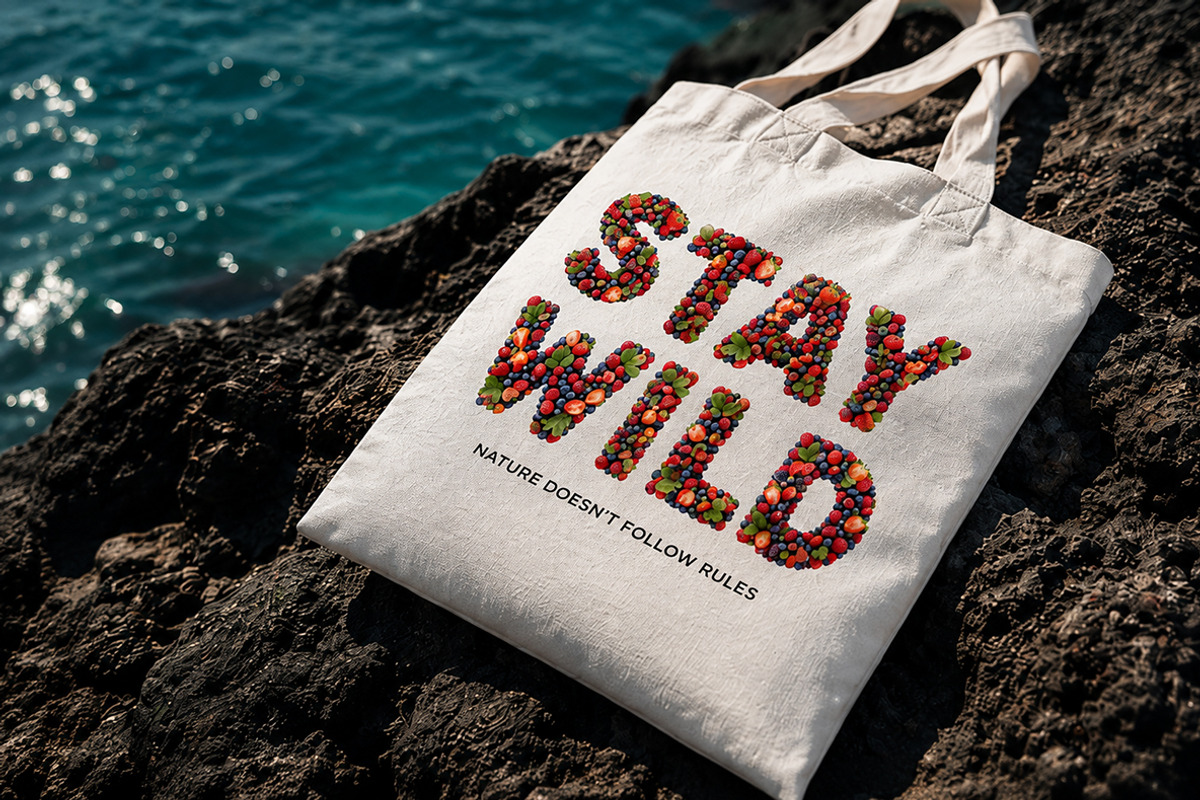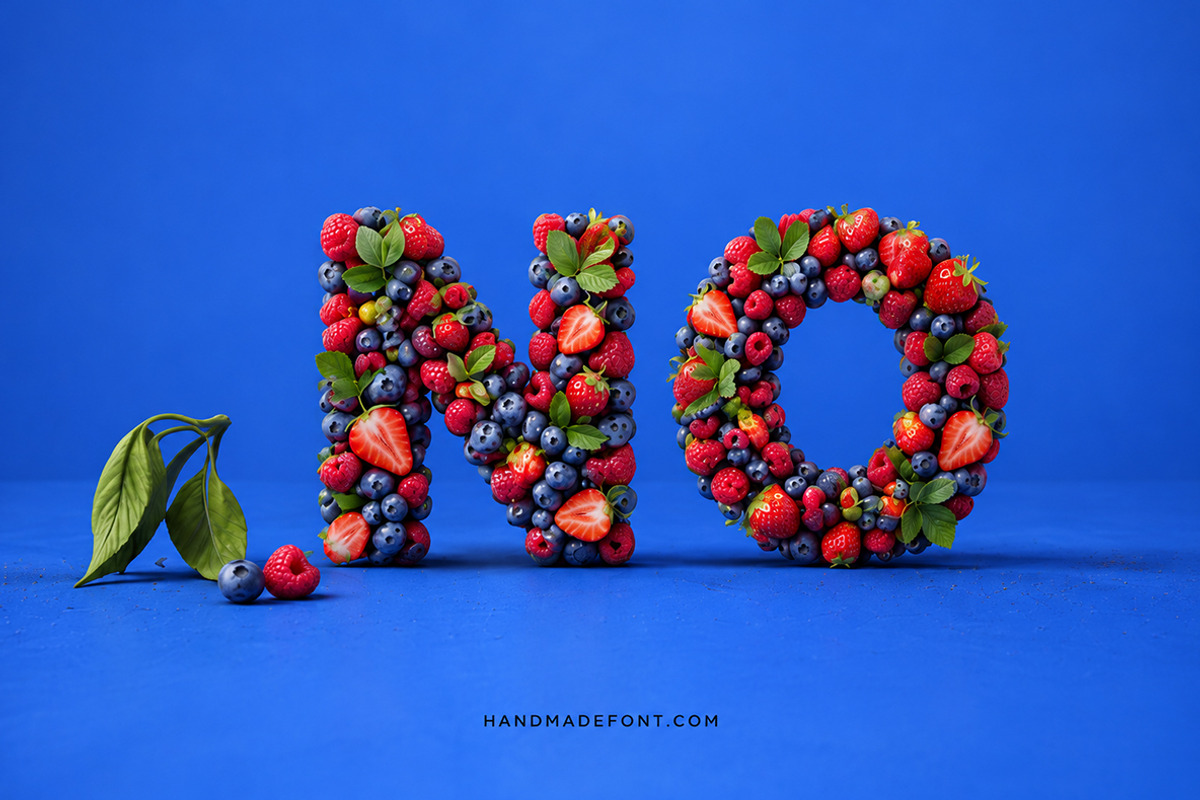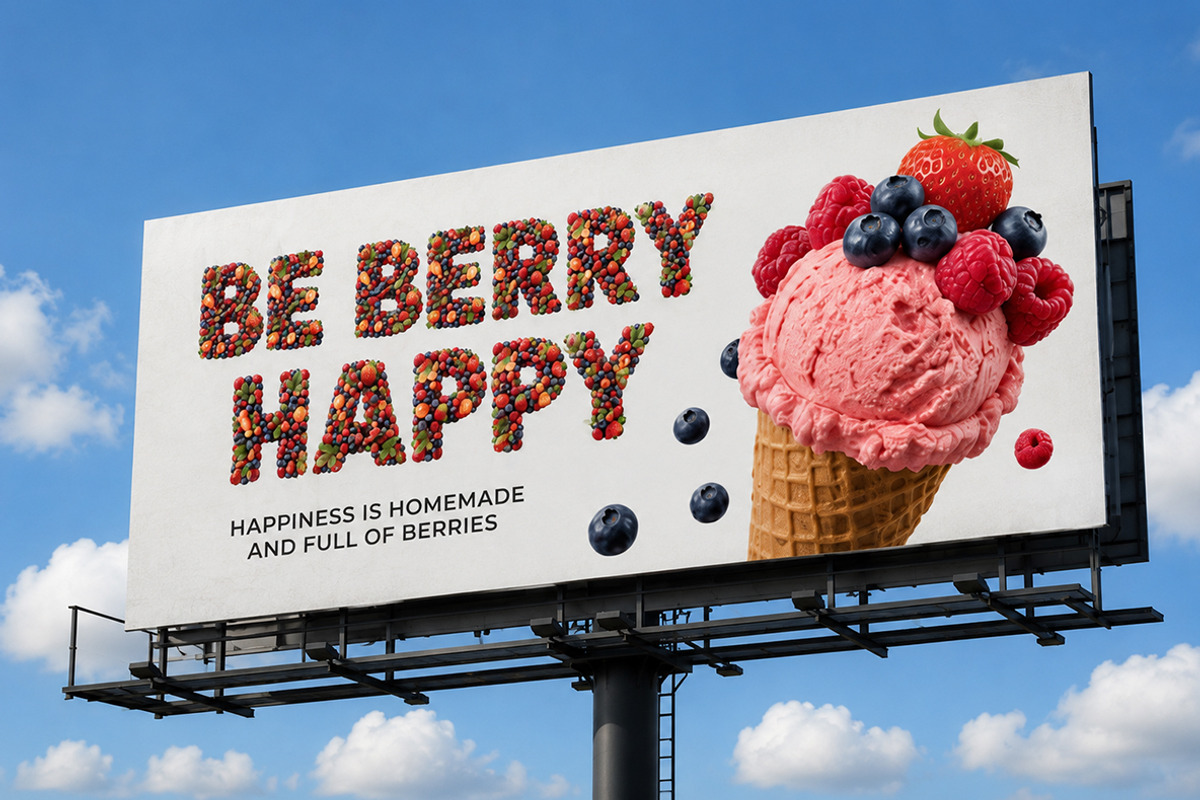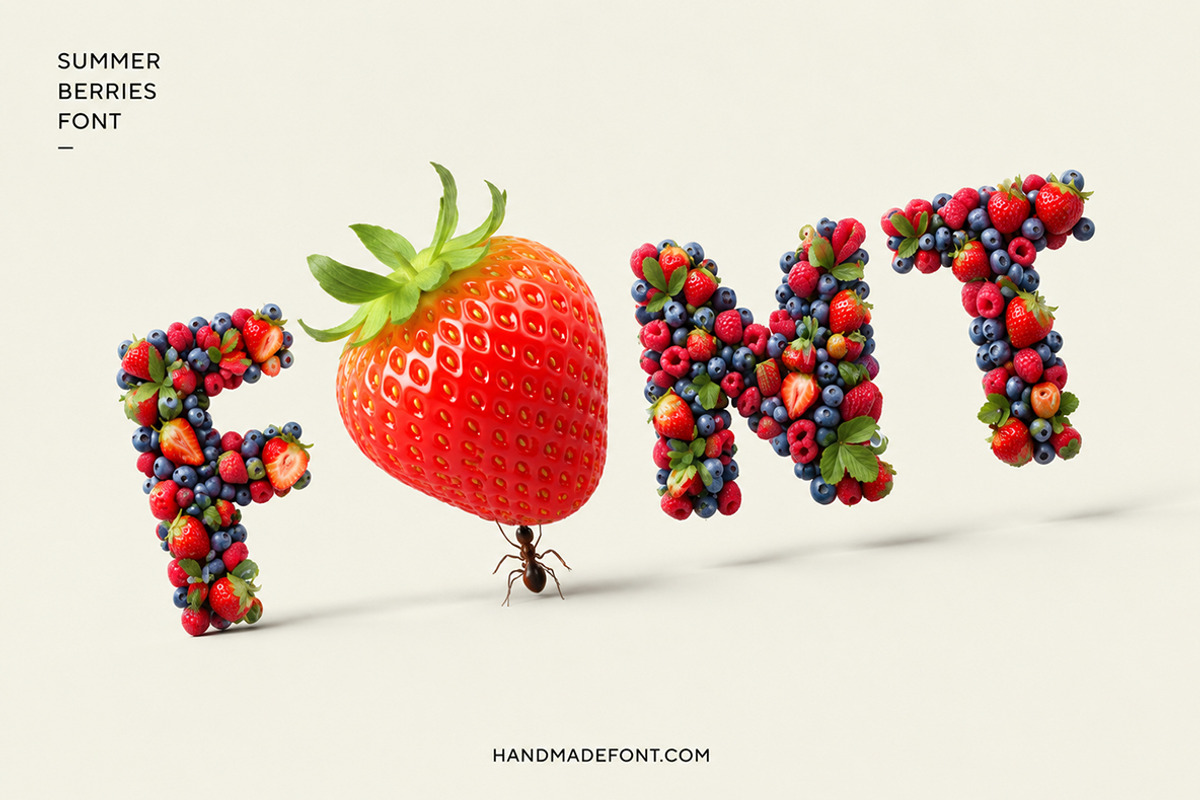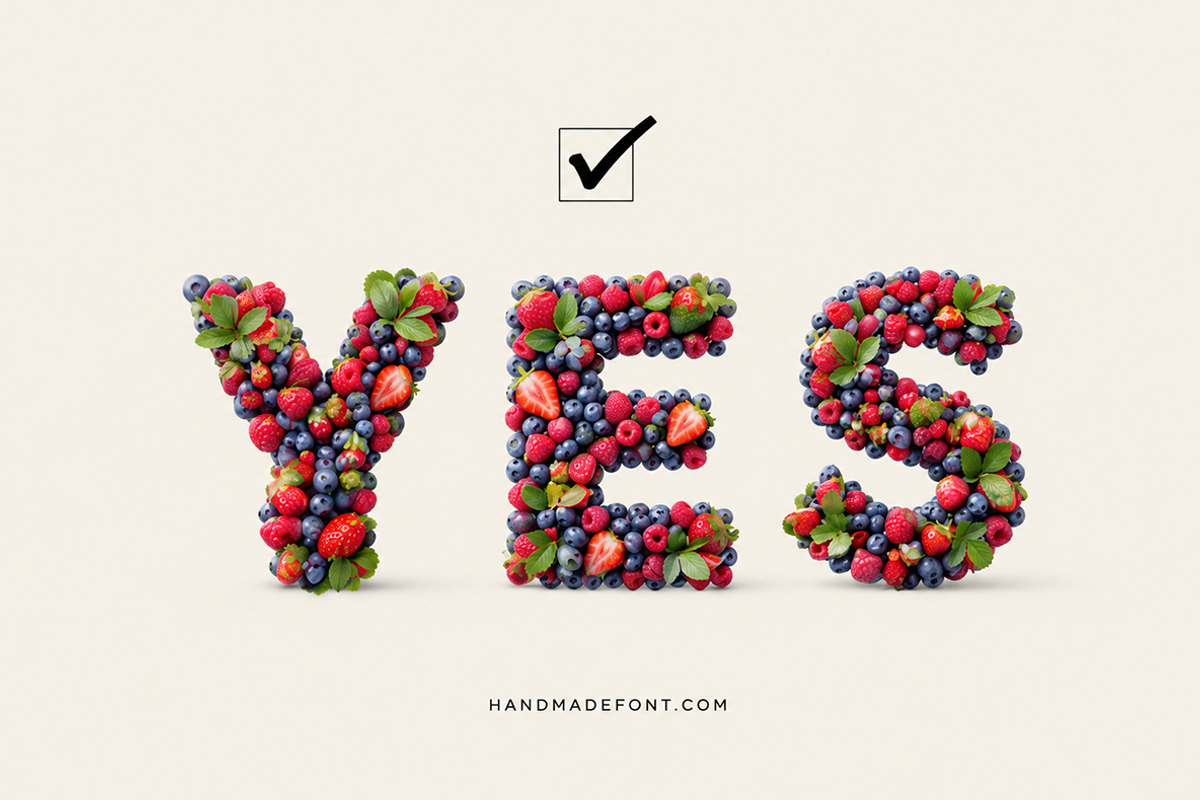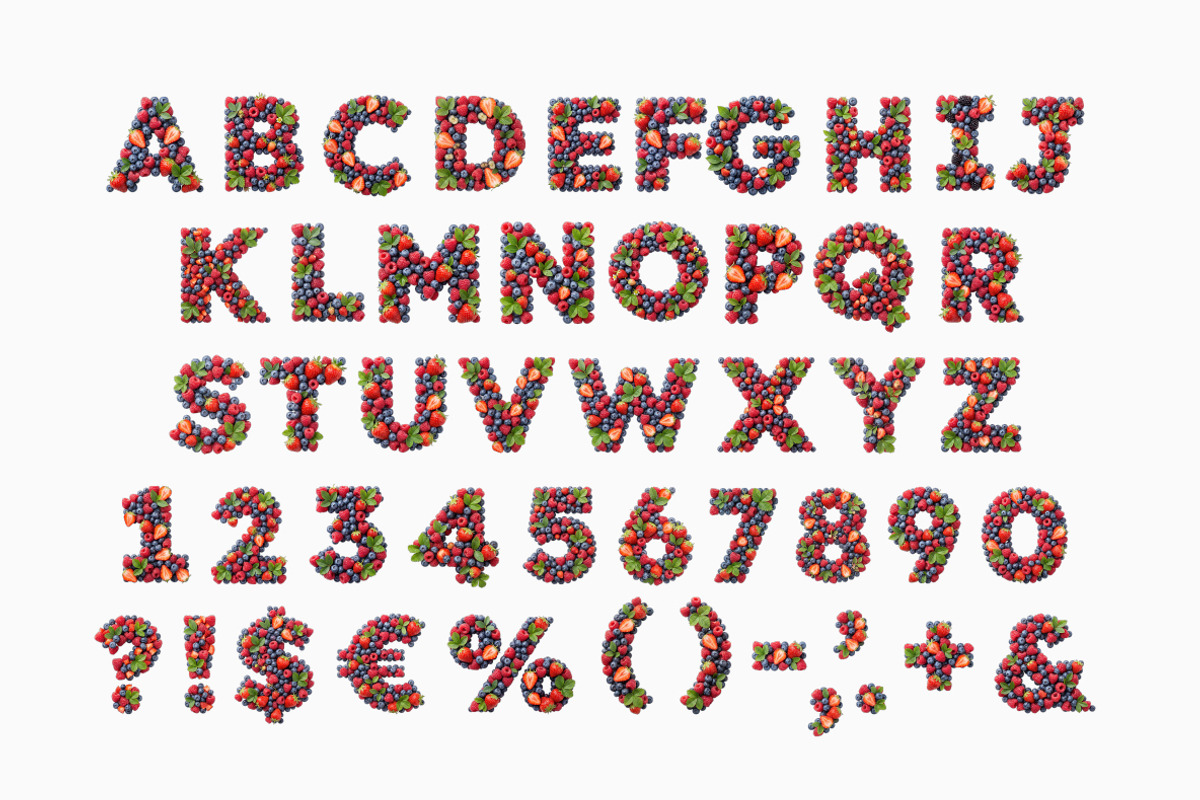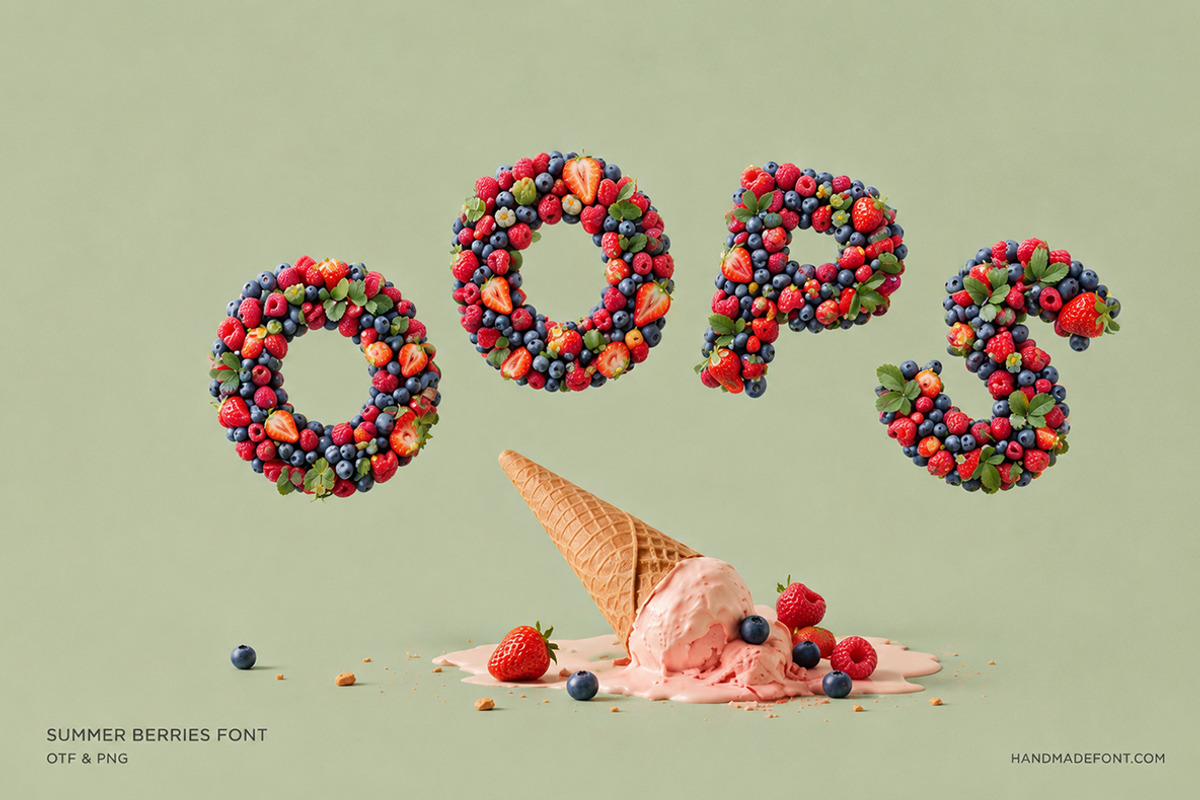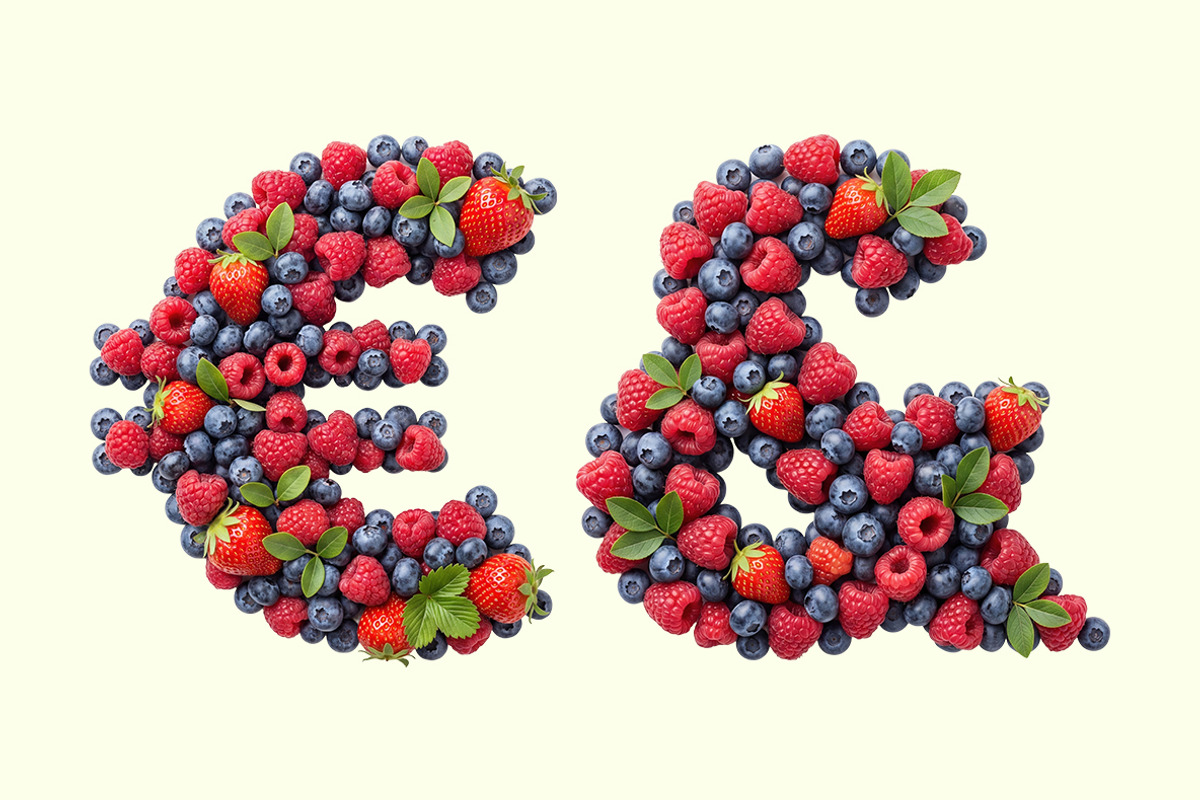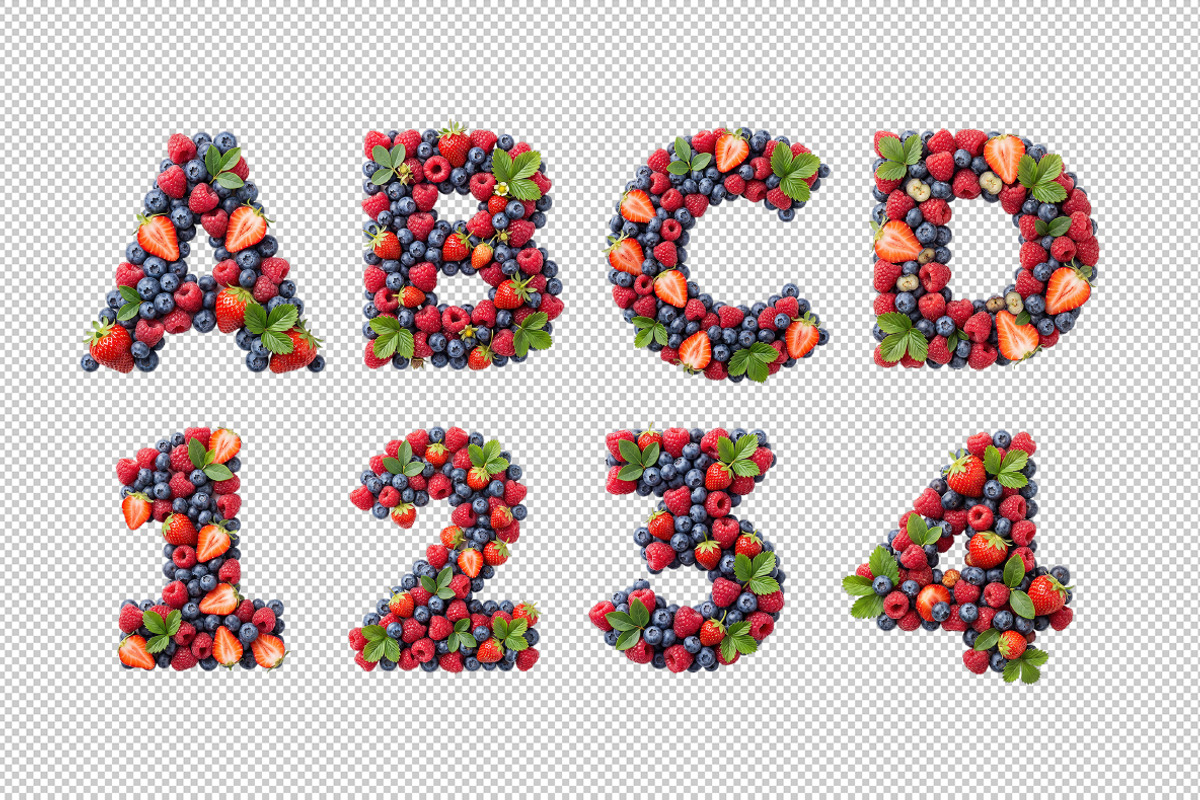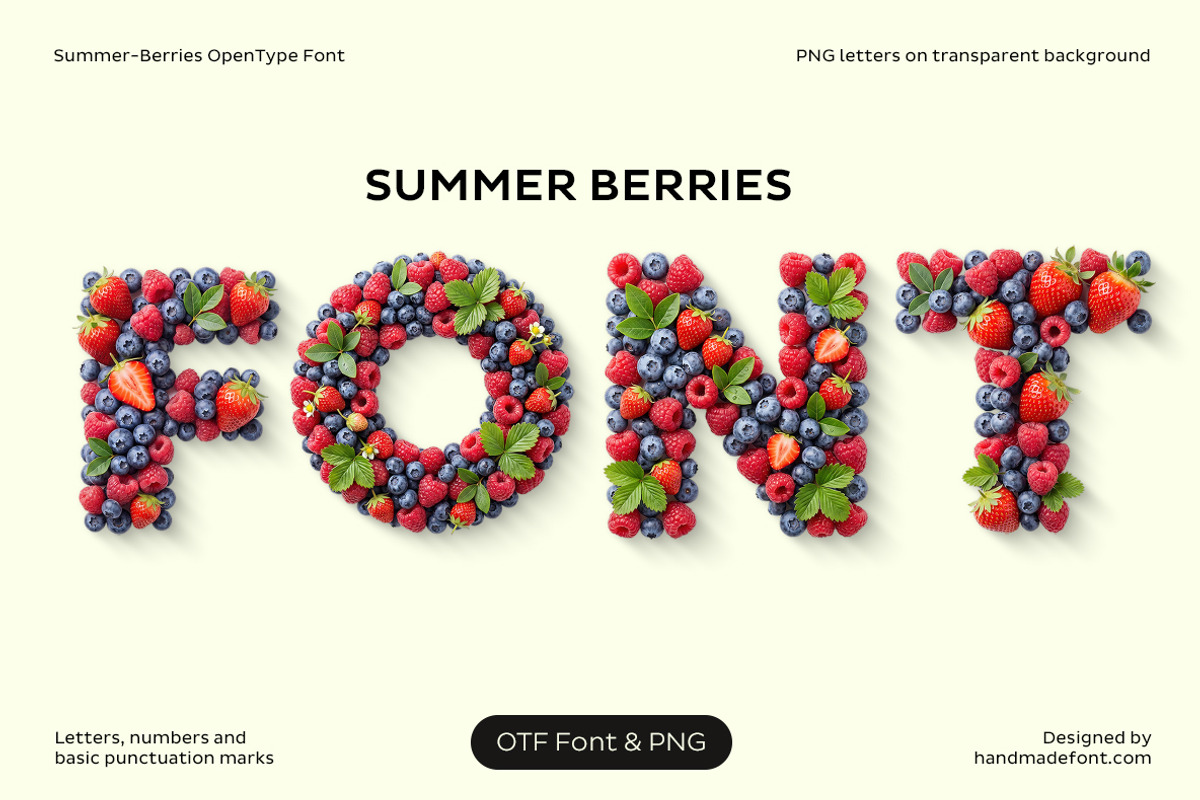
Summer Berries Font
Summer Berries Font is a fresh and playful handmade typeface inspired by the vibrant colors and natural beauty of summer fruits. Every letter is carefully crafted from realistic strawberries, raspberries, blueberries, and green leaves, creating a rich organic look perfect for seasonal branding, food packaging, posters, invitations, social media, and creative projects. The package includes a fully functional OpenType (OTF) font for easy typing, along with high-resolution PNG letters on transparent backgrounds, giving you complete creative freedom for custom designs. Add a sweet, colorful, and eye-catching summer atmosphere to your typography with this unique font that instantly brings freshness, joy, and natural charm to every project.
Letters : A B C D E F G H I J K L M N O P Q R S T U V W X Y Z
Numbers : 0 1 2 3 4 5 6 7 8 9
Others : ! ? - . ' $ € % & #